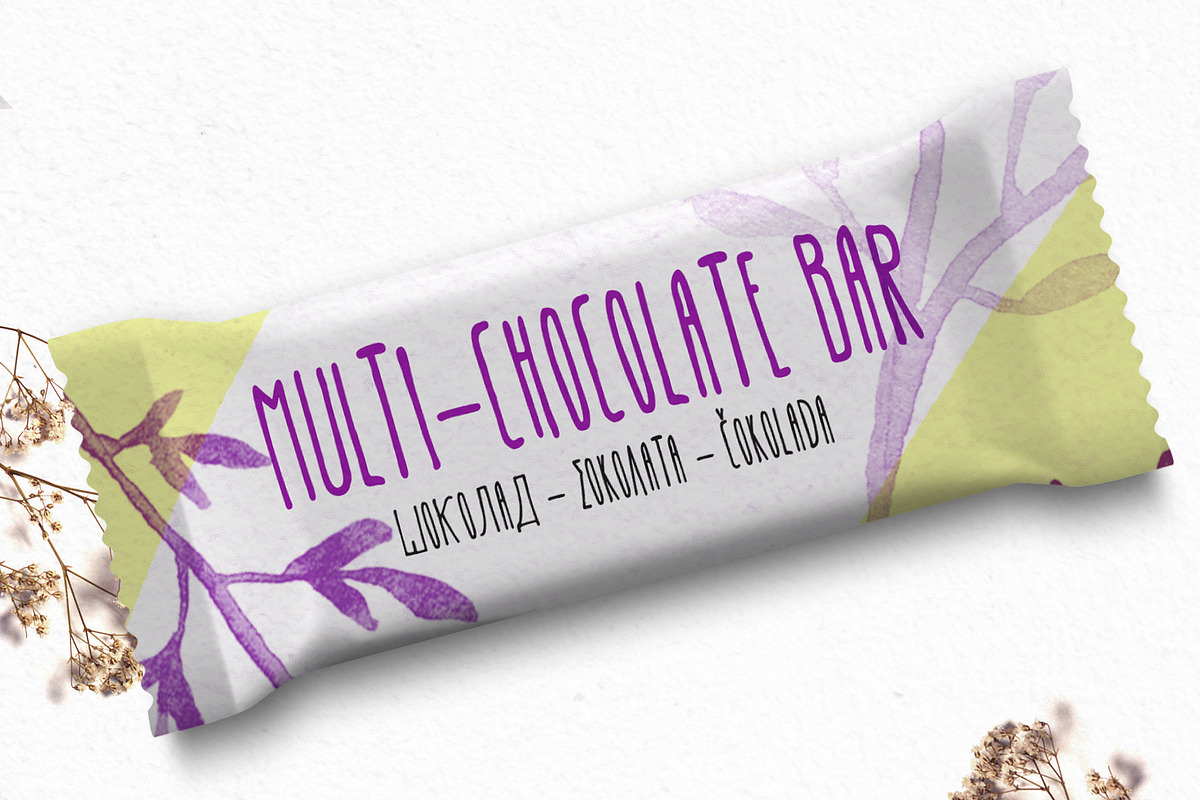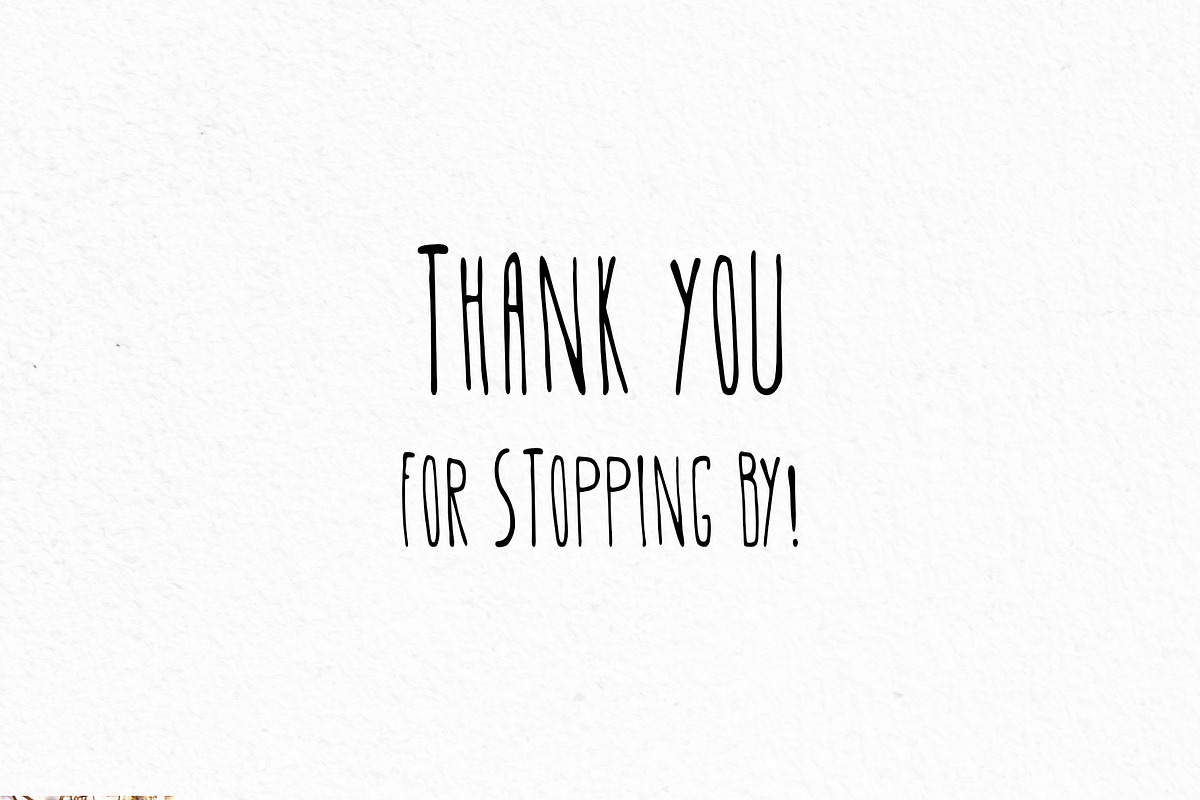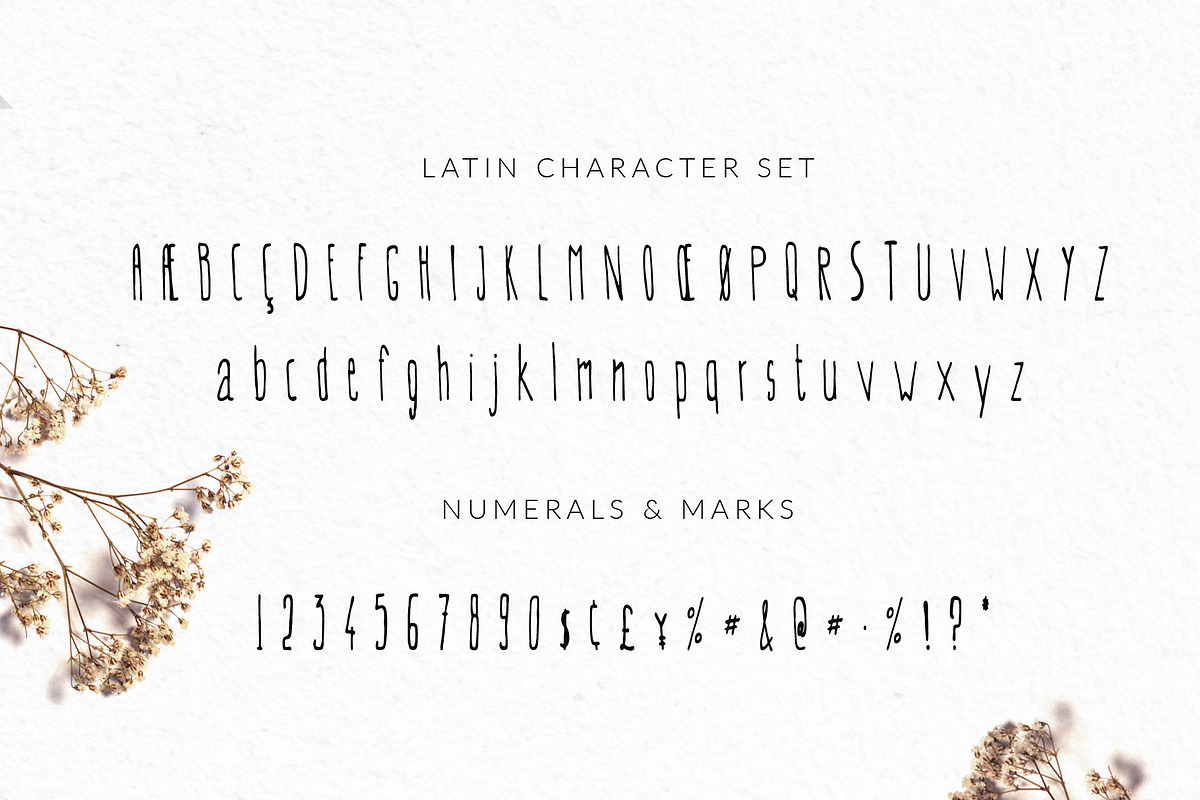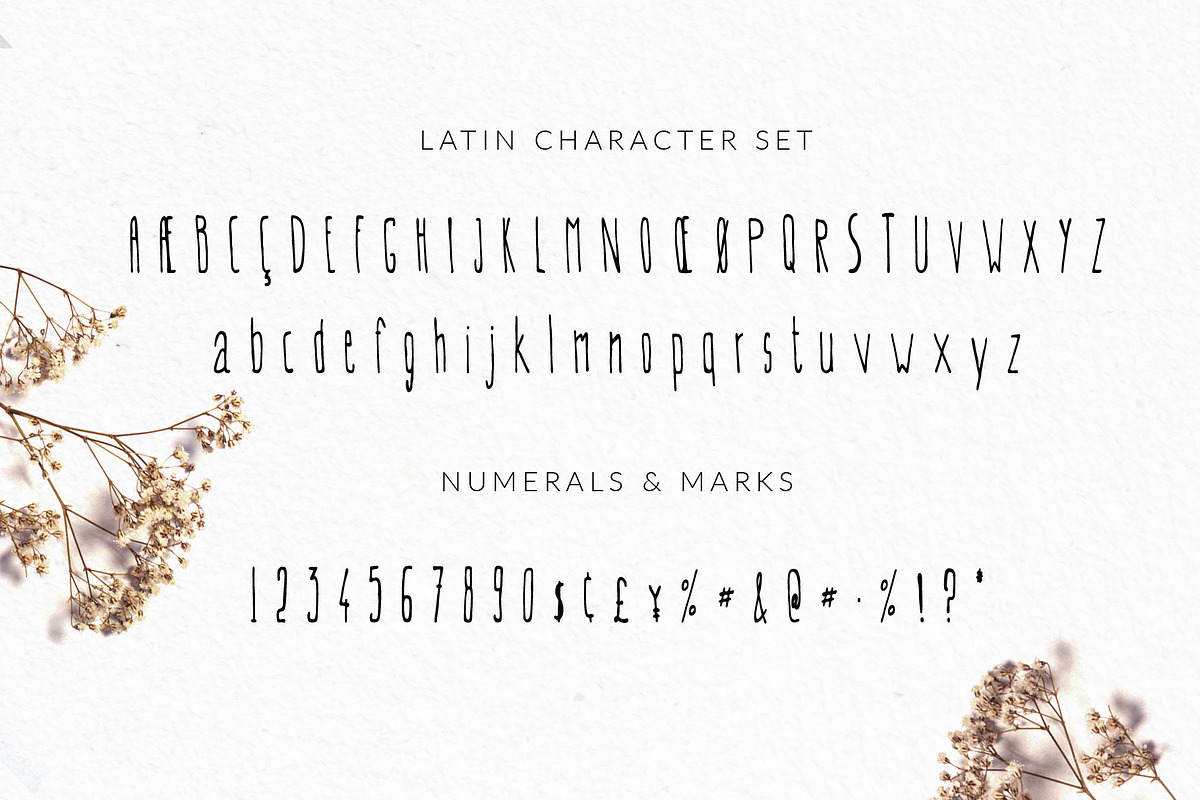
EVEY Greek Cyrillic handwritten Font
EVEY Greek Cyrillic handwritten Font by Greek fonts by nantia.co is a font selected for branding, posters, packaging, typography.
- EVEY Handcrafted Multilingual Font | Latin / Greek / Cyrillic I’m very glad to introduce Evey Handcrafted Multilingual Font | Latin / Greek
- The wide range of multilingual support of the font makes it ideal for international food packaging.
EVEY Greek Cyrillic handwritten Font by Greek fonts by nantia.co fits naturally into Branding, posters, packaging, typography.